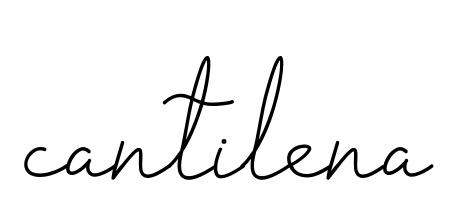
cantilena
By Bang Toyib
Cantilena: A flowing script font, elegant and graceful, whispers secrets of forgotten melodies. Its delicate curves and subtle flourishes evoke a sense of timeless romance and whimsical charm, perfect for invitations, stationery, or adding a touch of lyrical beauty to any design.